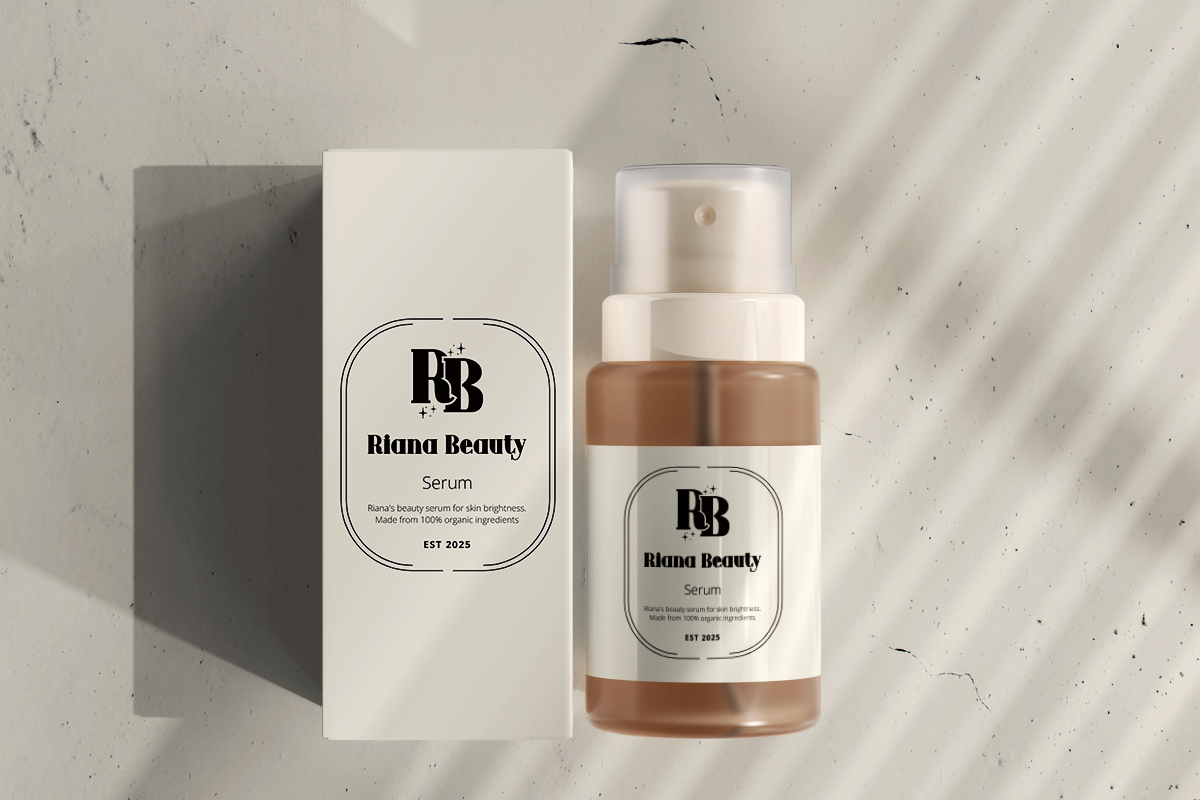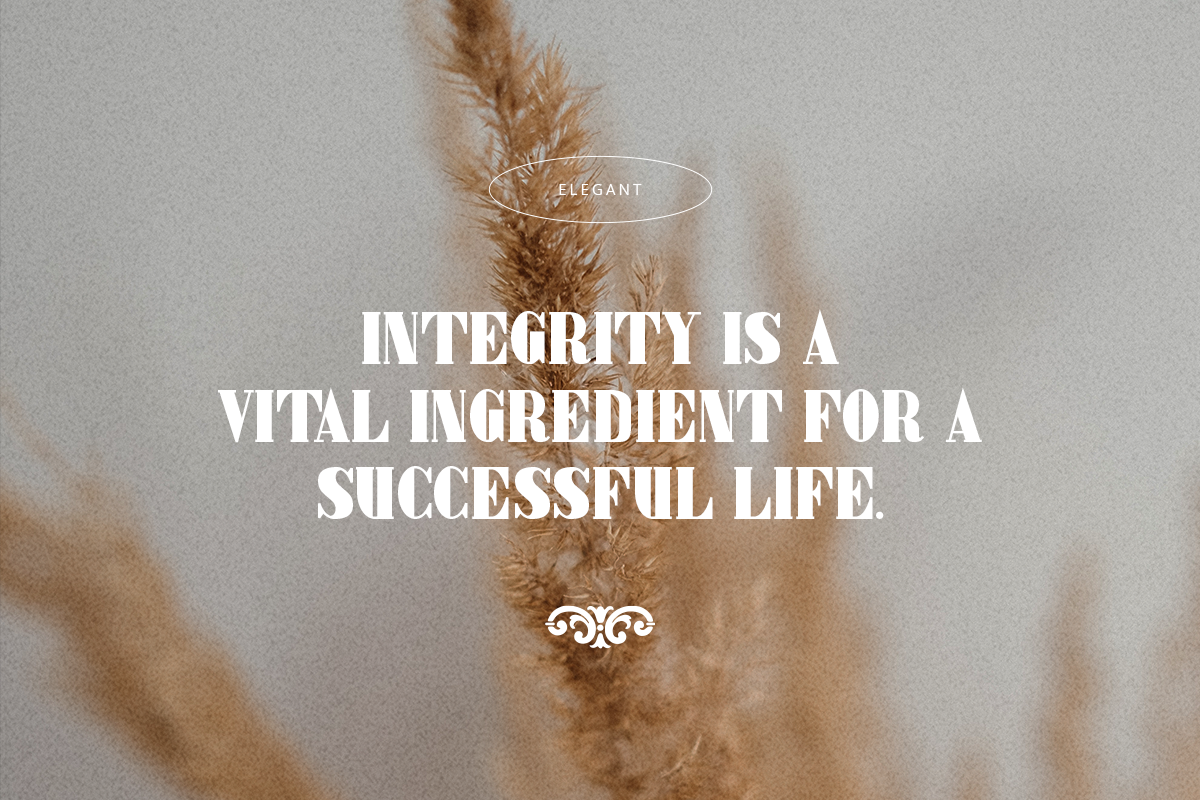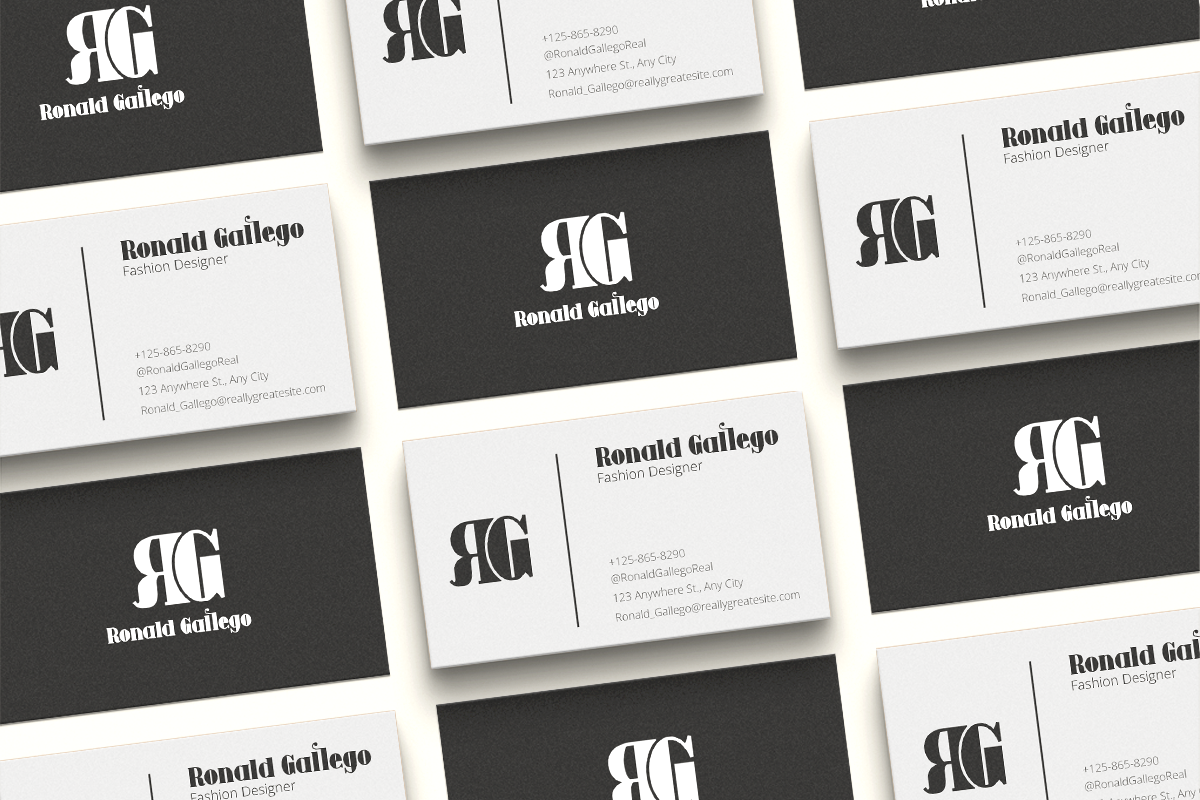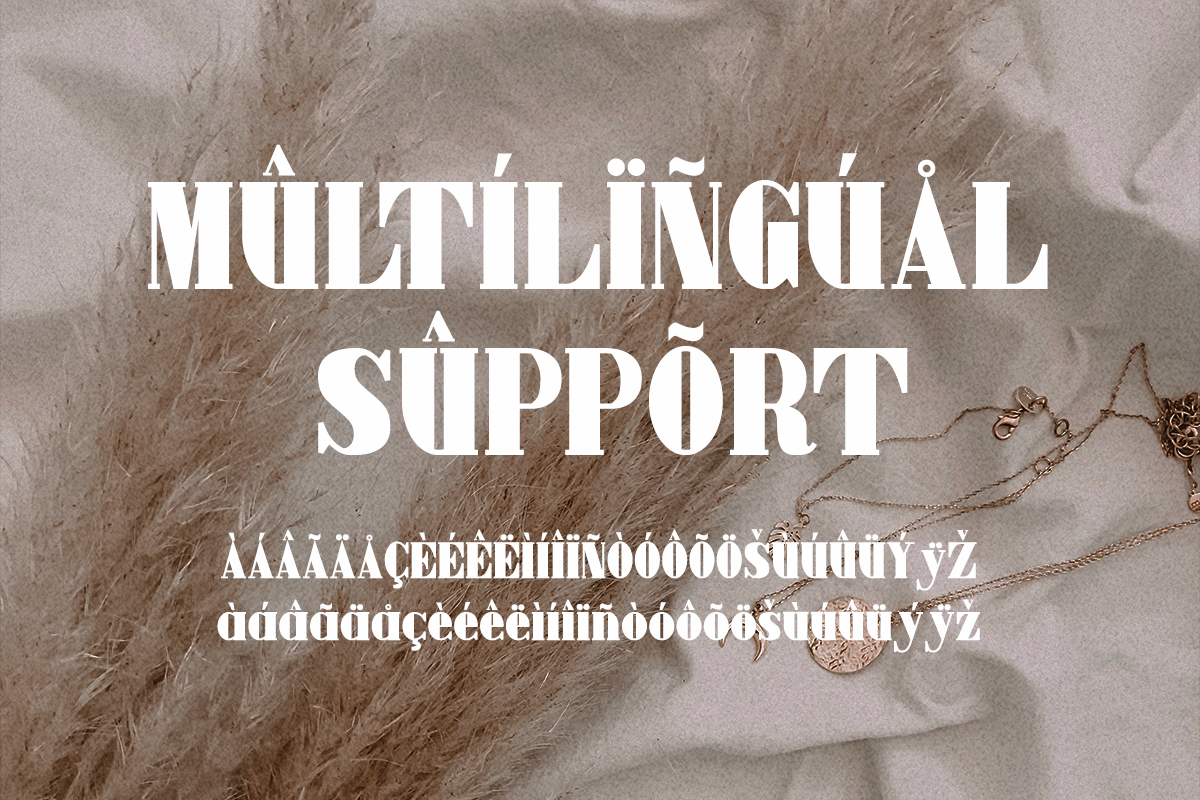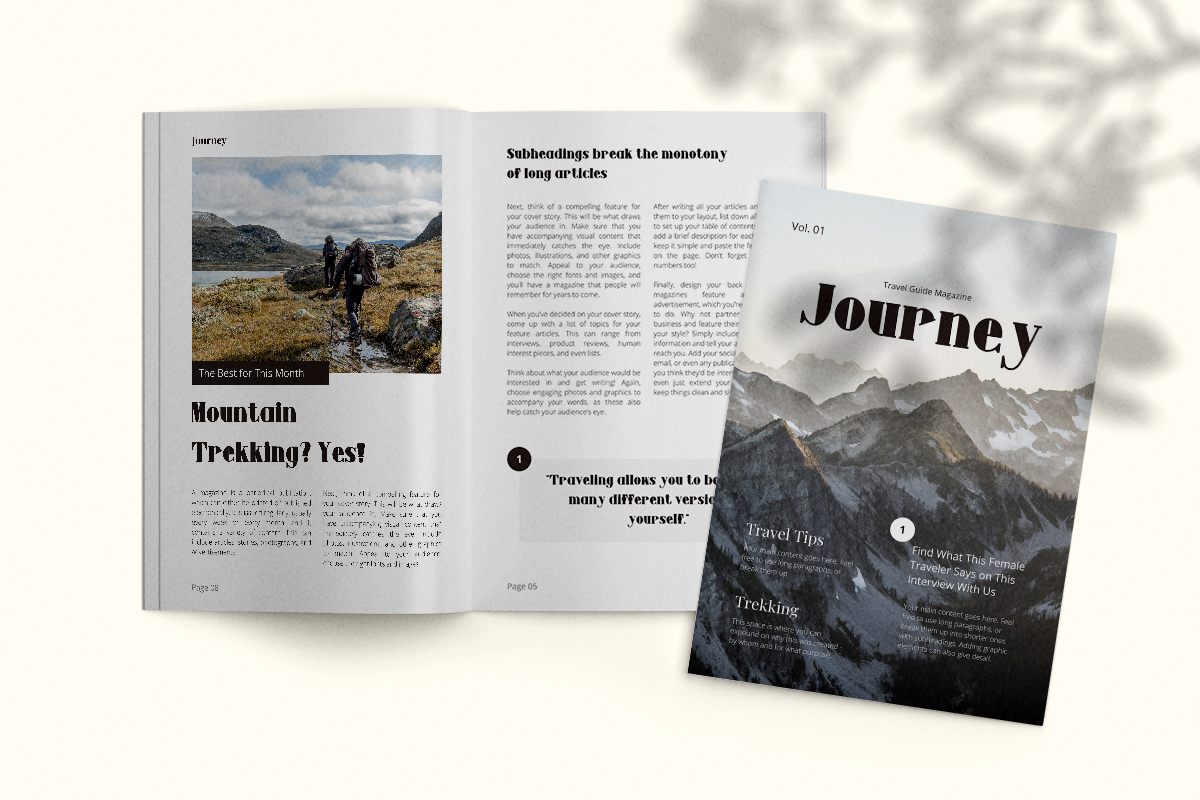
Elegant Classy Serif Font As the name suggests, Elegant Classy Serif Font is a typeface that exudes a stylish and elegant impression. Easy to read yet artistic, this font can serve many uses depending on the user. This font is best used largely as it has a medium serif. Elegant Classy Serif Font is a modern and stylish font. This font is part of the serif font family. Elegant Classy Serif Font can be used as a digital font such as, for promotions on the web and social media, as well as in print forms such as magazines and posters. One product that can be combined with this font is fashion and beauty. Magazines that cover fashion and beauty topics can use Elegant Classy Serif Fonts for their covers. This font can use as branding of a product, such as brand tags and posters. Keeping in mind modern business needs, Elegant Classy Serif Font is also suitable for personal business cards and business signage that denotes a place, such as cafes, boutiques, and make-up shops. Our Serif fonts collection is compatible for use as; Figma Fonts, Canva Fonts, Freepik Fonts, and Adobe Fonts. They also work as Windows Fonts and Apple Fonts. For your social media needs, you can use and install fonts in our collection of serif fonts to use as Instagram Fonts, Facebook Fonts, and Twitter Fonts.